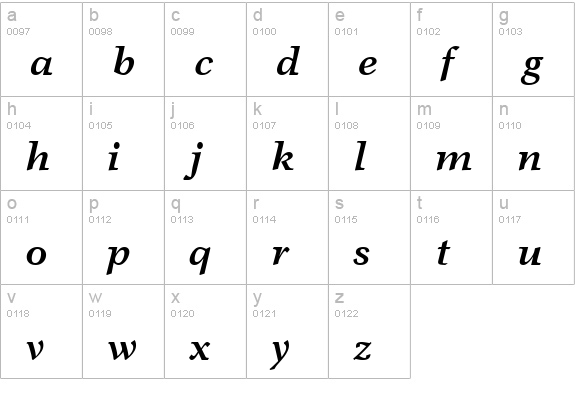
Axiomatic SSi Bold Italic Font Details
Axiomatic SSi Bold Italic is a strong, high-contrast, italic variant in the Axiomatic typeface family \xE2\x80\x94 well suited to headlines, attention-grabbing titles, and strong calls-to-action.
The Axiomatic SSi Bold Italic font is a bold and dynamic typeface that exudes modernity and sophistication. Its sleek lines and sharp angles make it perfect for adding a touch of contemporary flair to any design project. The italicized style adds a sense of elegance and movement, making it ideal for headings, titles, and branding materials. This versatile font is not only visually striking but also incredibly legible, ensuring that your message will be communicated effectively. Whether you're designing a website, creating marketing materials, or crafting a logo, the Axiomatic SSi Bold Italic font is sure to make a bold statement. The best part? This stunning font is available for free download at FontsMarket.com, giving you access to high-quality design resources without breaking the bank. Don't miss out on the opportunity to enhance your projects with the Axiomatic SSi Bold Italic font - download it today and elevate your designs to the next level.